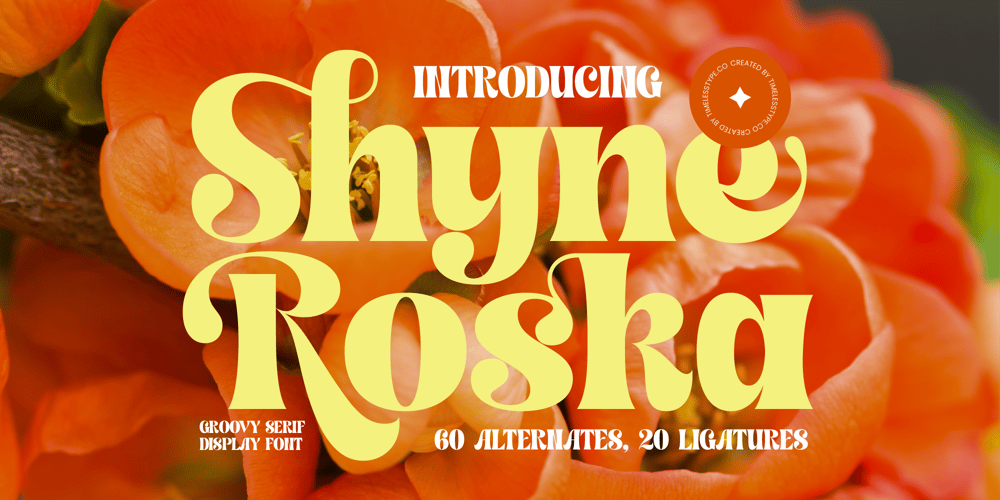
Shyne Roska
Shyne Roska font
Shyne Roska Font Family was designed by Heru Utama Putra and published by Timelesstype Studio. Shyne Roska contains 2 styles and family package options. Shyne Roska – Groovy Serif Display Font , from Timelesstype, Suitable for any projects such as: logos, branding projects, homeware designs, product packaging, mugs, quotes, posters, shopping bags, t-shirts, book covers, name card, invitation cards, greeting cards, label, photography, watermark, special events, and all your other luxury and beautiful projects that need a Luxury Serif taste.